Typography in 2026 is all about character and context — designers are blending functional simplicity with expressive strokes to create typefaces that feel both contemporary and timeless. In this curated review, we dive into ten fonts that stand out in the current visual language, each offering a distinct voice for editorial work, branding, posters, and creative design explorations. Here’s a breakdown of these typefaces into intuitive categories to spark your next project.
Clean & Minimalist Fonts
These fonts bring clarity and quiet confidence, perfect for modern layouts, user interfaces, and minimalist branding.
• Olario is a modern sans serif font that combines clean structure with an elegant, contemporary feel. It works beautifully for magazines, packaging, posters, apparel, book covers, photography, and special event designs, adding a refined yet versatile touch to any project.
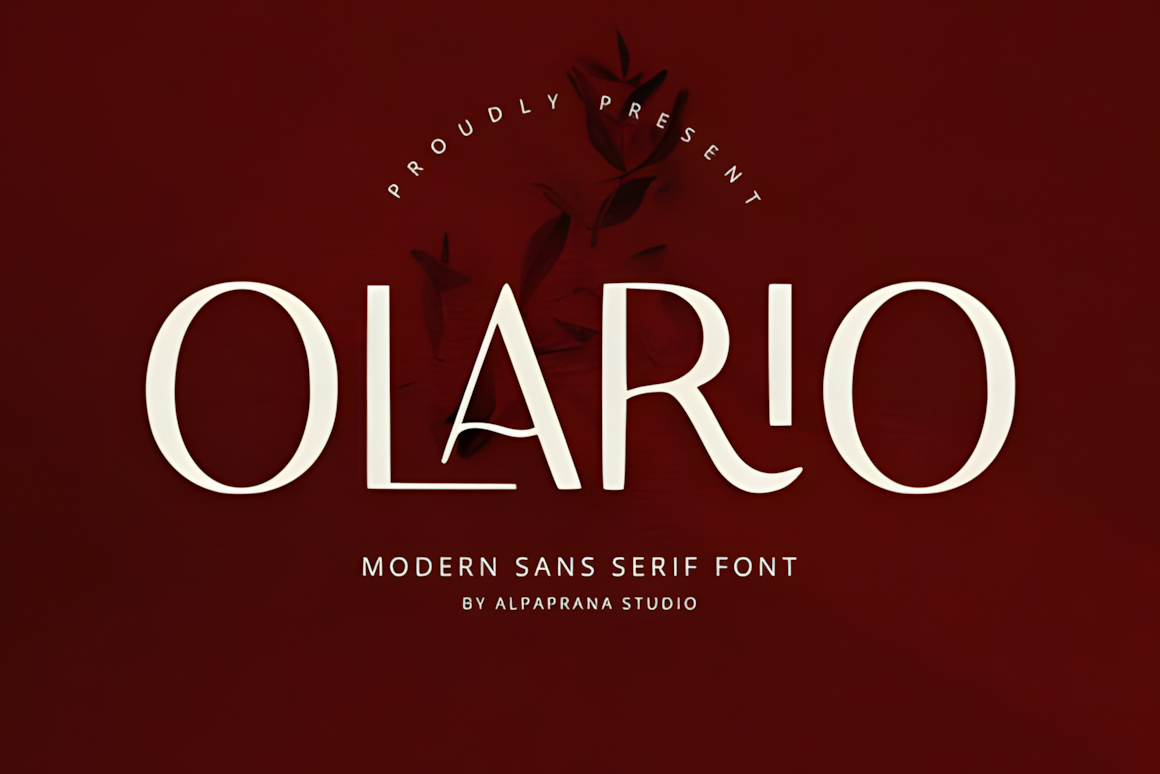
• Grizo Sans is a powerful retro bold sans serif typeface that delivers an unmistakable visual impact. Inspired by 1970s advertising and bold signage, it features ultra-thick geometric letterforms with compact curves and minimal negative space, making it a strong choice for branding across fashion, food, and lifestyle industries.
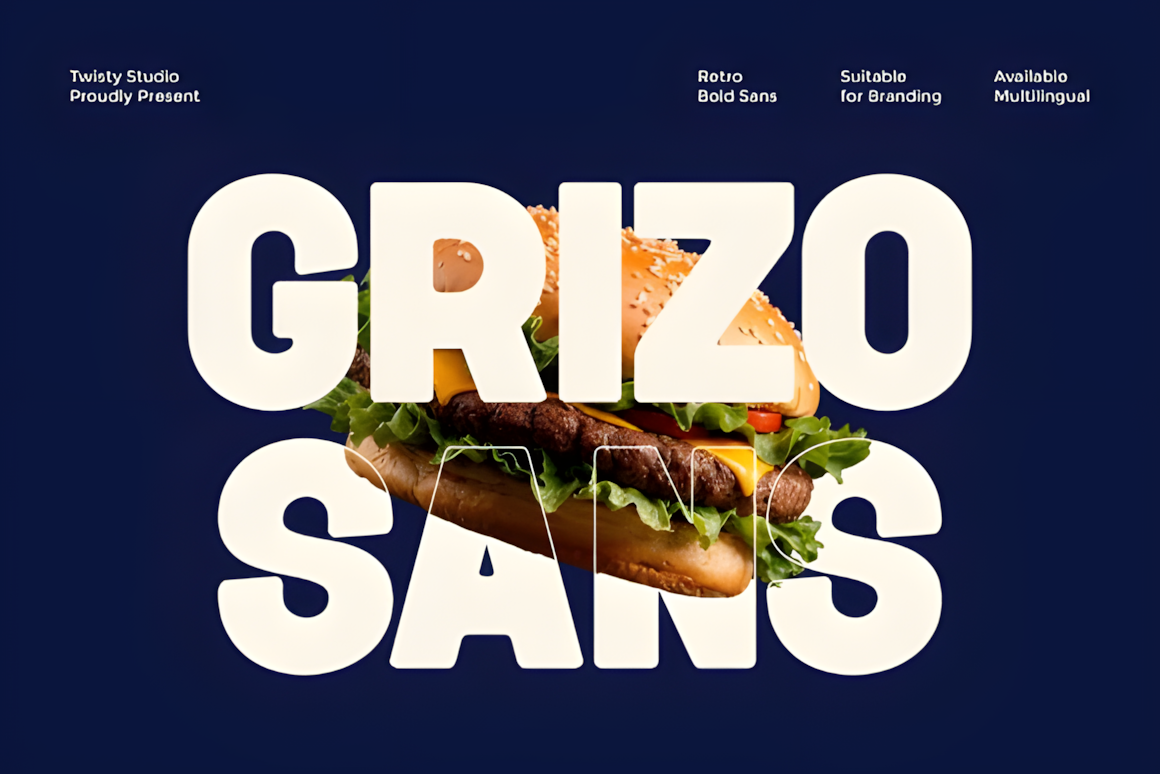
• The Autogate is a playful font duo combining a flowing script with a clean sans serif that work beautifully together. Its classic yet friendly character makes it ideal for logos, apparel, invitations, branding, packaging, and advertising projects.
• Portiso is a modern luxury serif typeface created to express prestige, elegance, and timeless sophistication. With high-contrast strokes, refined letterforms, and beautifully crafted alternates, it is perfect for premium branding, editorial designs, and projects that demand a high-end visual impact.
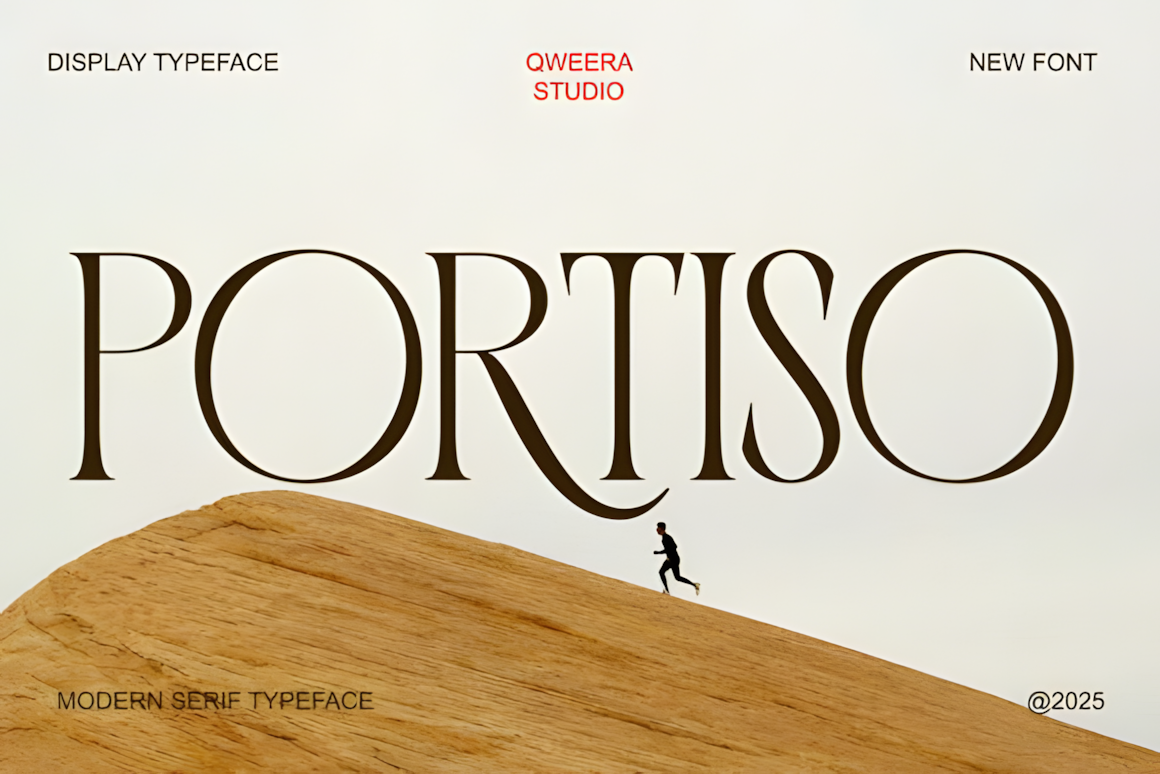
Expressive & Decorative Display Fonts
These typefaces are built to catch the eye, adding personality and flair to headlines, posters, and creative visual statements.
• Chiqueta is a modern sans-serif typeface that blends elegance with contemporary style. Its clean, minimalist letterforms and subtle geometric details make it ideal for sophisticated branding, editorial design, and projects seeking a polished, high-end look.
Lorine is a classic serif display font that combines timeless elegance with modern refinement. Its graceful proportions, subtle serifs, and balanced contrast make it perfect for luxury branding, editorial layouts, and sophisticated design projects.
• Magox is a modern sans-serif font with bold, smooth letterforms and clean geometry. Its rounded curves and consistent proportions make it highly readable while giving a contemporary, sophisticated edge. Perfect for luxury branding, editorial layouts, and designs that value clarity, balance, and modern aesthetics.
• Lighting is a romantic and elegant serif font with smooth, fresh strokes that suit weddings, celebrations, and love-themed designs. Its multilingual support and clean, versatile style make it perfect for branding, editorial layouts, invitations, packaging, and striking visual projects. Ideal for adding charm to covers, cards, posters, logos, and apparel.
Thematic & Mood-Setting Fonts
Fonts here evoke seasons, emotions, and narrative feeling — great for thematic posters, special events, and lifestyle projects.
• Winter is an elegant script font with graceful letter connections and stylish character variations. Its clean, feminine design makes it perfect for invitations, branding, fashion, stationery, packaging, and any project that needs a sophisticated, modern-classic look.
• Saturday is a refined script font with elegant character variations and smooth, fancy letter connections. Its clean, feminine style works beautifully for invitations, branding, fashion, stationery, packaging, and any project that calls for a sophisticated, modern-classic touch.
Across these ten fonts, the range from minimalist sans serifs to expressive display typefaces captures the diversity of contemporary typography. Clean, functional designs like Olario and Grizo Sans empower clarity in commercial and digital contexts, while playful and thematic fonts such as Chiqueta and Winter bring mood and personality to headlines and lifestyle branding. Choosing the right typeface here is not just a stylistic choice — it’s a way to set tone, establish identity, and make visual communication more impactful.